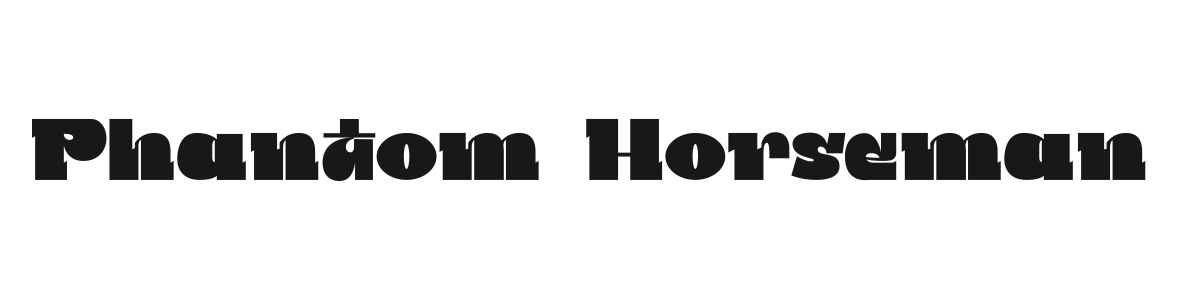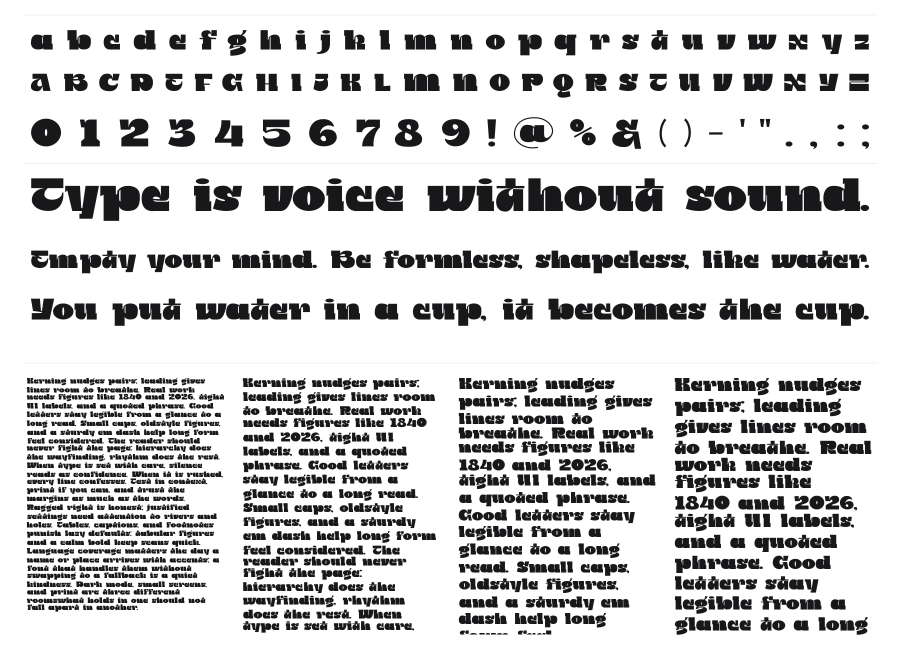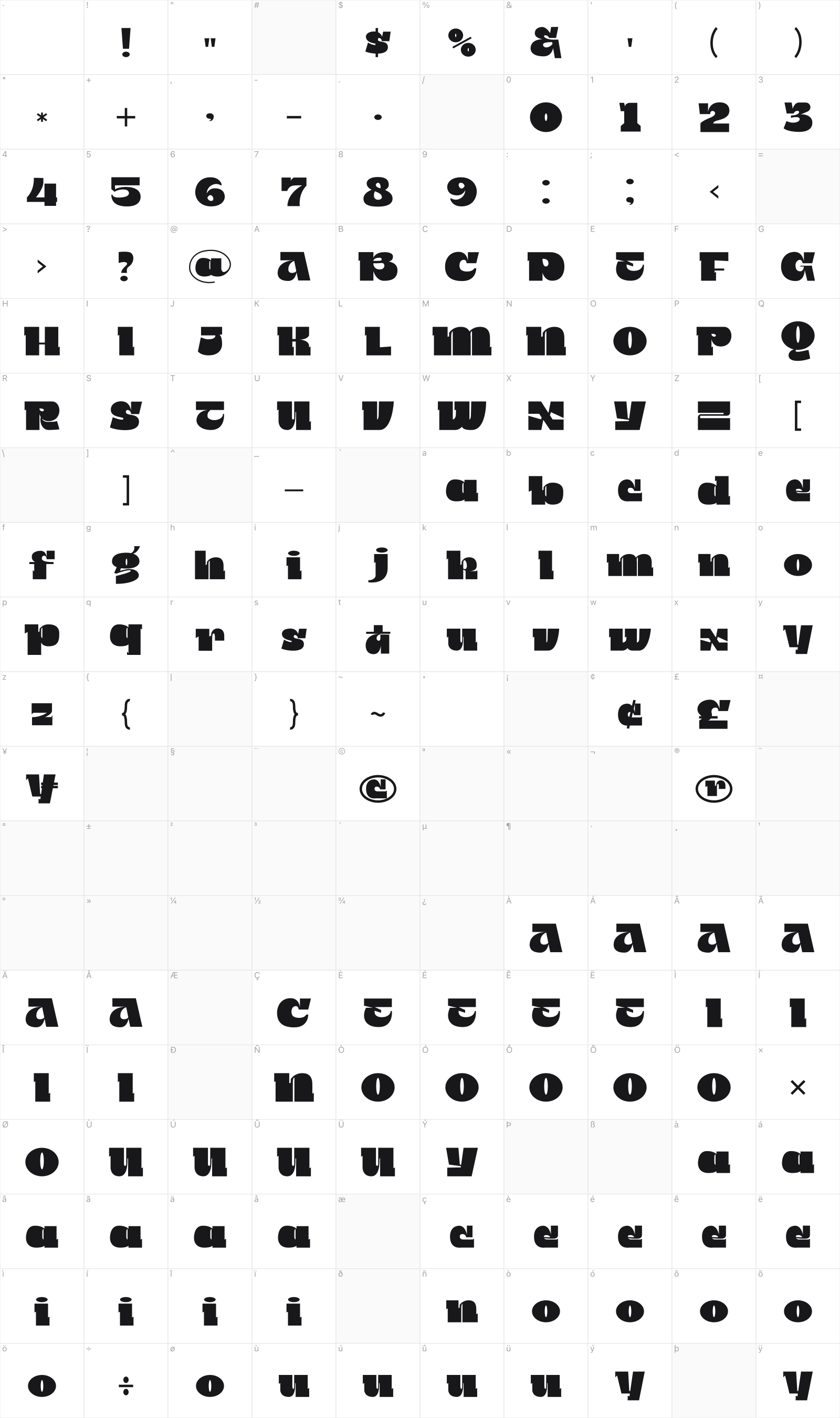
Phantom Horseman
Phantom Horseman is an ultra-bold retro serif bursting with 1970s phototype energy. Massive thick stems collide with almost invisible hairline curves, creating extreme stroke contrast and a sense of inflated, playful drama. It belongs on posters, album covers, and anywhere that needs a big personality at large sizes.